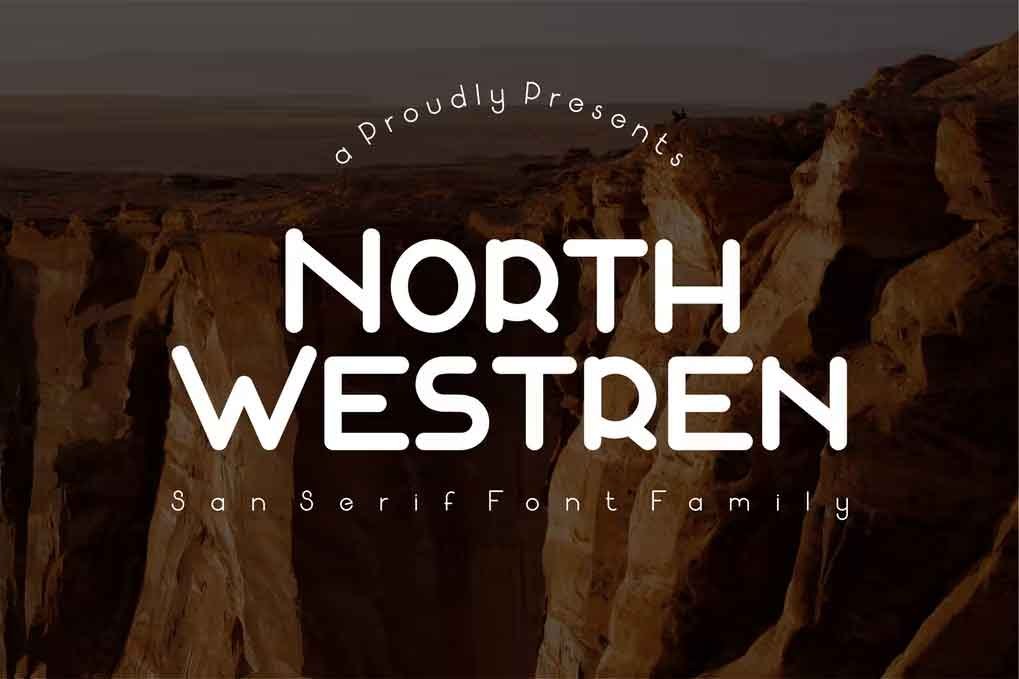
North Westren Font
North Westren Font It has a elegant, classy look and modern. It’s a great font for fashion, apparel projects, signature, album cover, logo, branding, magazine, social media, & advertisements, but also works great for other projects.
Where North Westren Font works best
North Westren Font stays legible at small sizes, which makes it a strong choice for navigation, buttons and dashboards in web design and app interfaces.
Clean sans serifs like North Westren Font are the default language of SaaS, fintech and product branding.
What is North Westren Font good for?
North Westren Font is a Sans Serif Fonts typeface tagged Branding, Editorial, Elegant, Modern. It works well for headlines, logos, posters, social media graphics and branding projects that need a distinctive sans serif fonts look.